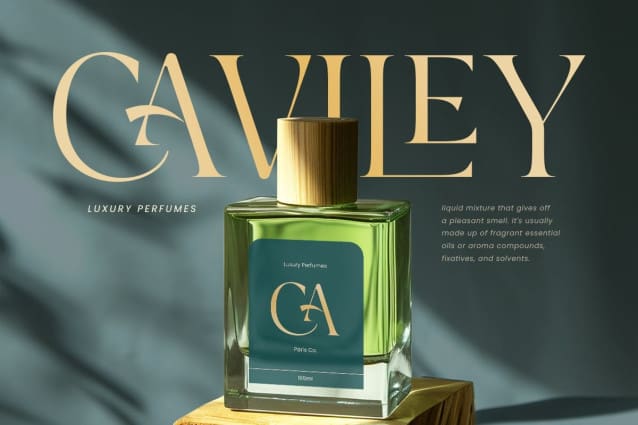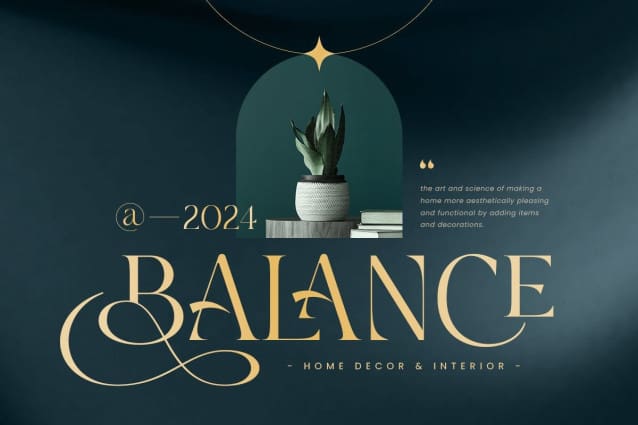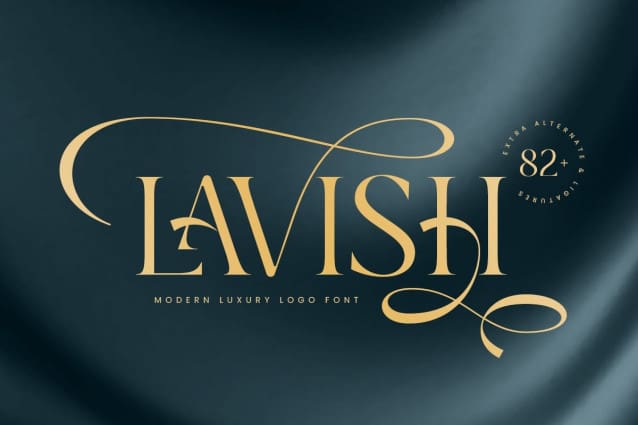
Lavish Font
Lavish Font, a font that embodies modern luxury and elegance. Designed to enhance your brand, Lavish combines contemporary style with timeless sophistication, making it perfect for high-end logos and branding projects.
With Lavish Font, your designs will radiate elegance and sophistication. Whether you’re working on a high-end brand, luxury product packaging, or sophisticated event invitations, Lavish offers the perfect blend of modern style and classic elegance. Elevate your brand with Lavish and make a statement that resonates with luxury and sophistication.